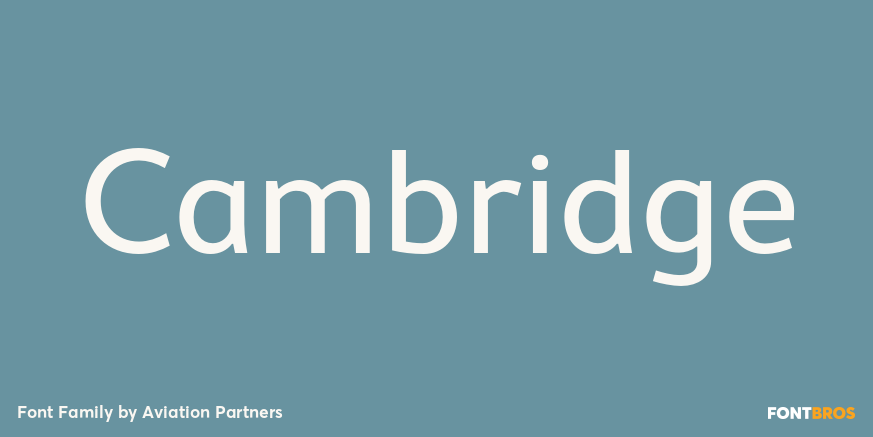
Cambridge
About Cambridge
Cambridge seeks to build on the popularity of Fiendstar amongst educational publishers and advertisers who need easy-to-read text in a classic sans serif format. Cambridge is an elegant typestyle that is equally at home in a schoolbook or an annual report.…